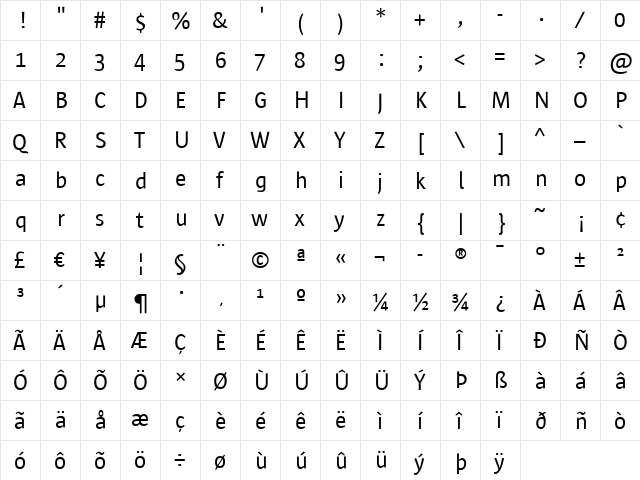
Sun Sans- Regular
| Foundry | Luc[as] de Groot Exclusively for Sun Microsystems |
Design Context for Sun Sans- Typeface
Sun Sans- is a composed and adaptable typeface that performs quietly and consistently across a wide range of design contexts.
Pro Tip: Pair Sun Sans- with a font of contrasting weight or personality to build a more expressive typographic hierarchy.